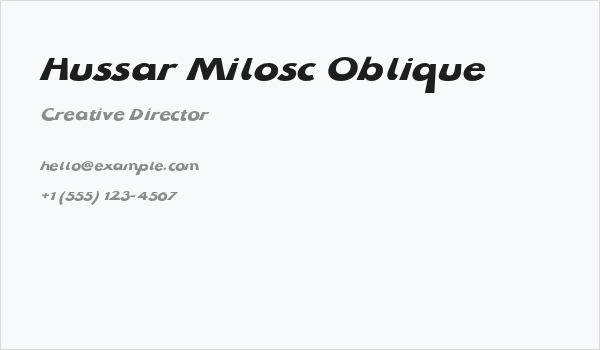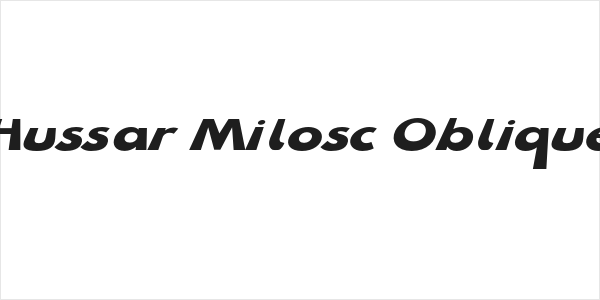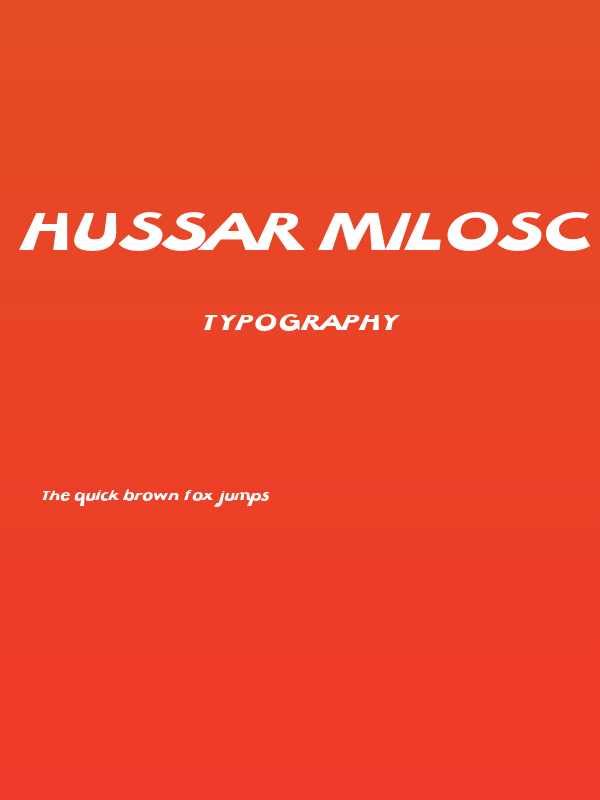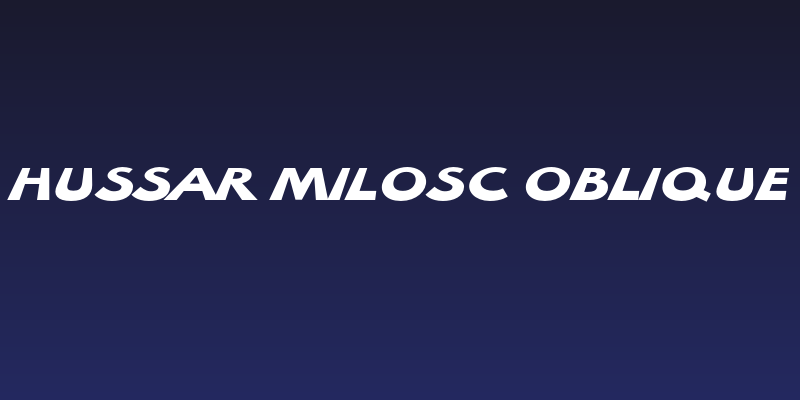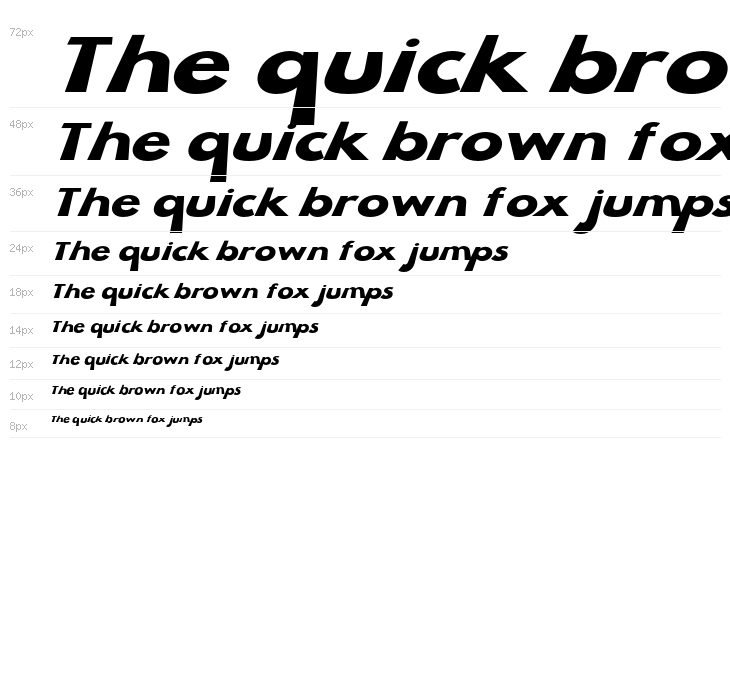
Hussar Milosc Oblique Font
Hussar Milosc Oblique Description
This font features a bold, oblique style with a modern and dynamic appearance. The characters are slightly slanted, giving a sense of movement and energy. The strokes are thick and consistent, providing a strong visual impact. The uppercase letters are bold and assertive, while the lowercase letters maintain a cohesive flow. The numerals are clear and easy to read, matching the overall boldness of the font. Special characters are well-defined, complementing the alphabetic characters. This font is suitable for projects that require a strong, modern aesthetic.
Hussar Milosc Oblique